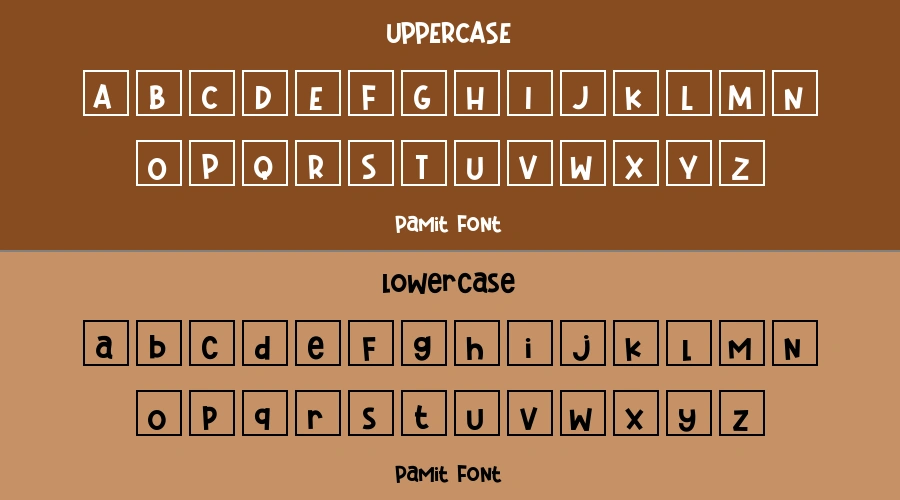
About Pamit Font
Designed with precision, Pamit Font merges precise joints with system consistency in every character. This versatility makes it particularly effective for advertising headers, where authenticity and visual authority directly impact communication quality. Each letterform demonstrates meticulous craftsmanship.
Technical excellence shines through elements like rounded apexes and expert sets, enhancing typographic versatility. In colophons settings, Pamit Font proves its worth through superior small cap rendering. The thoughtful execution of character width and design lineage ensures professional results.